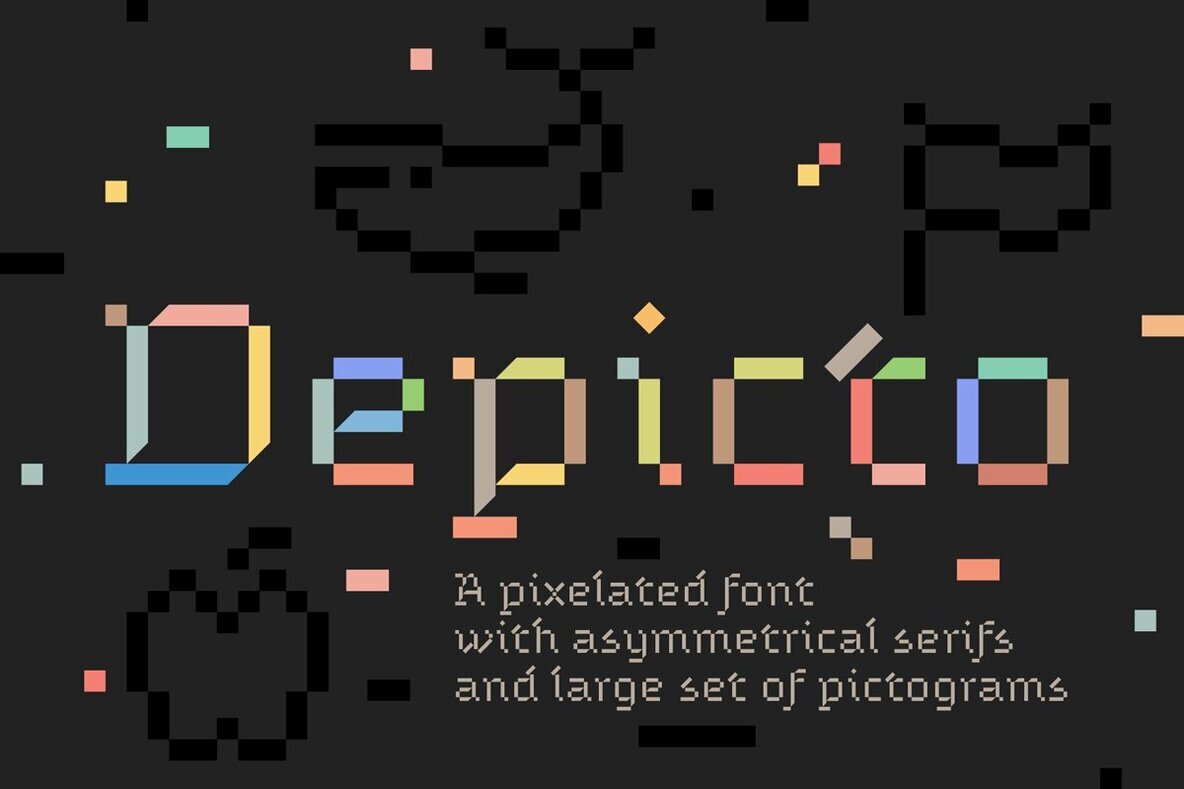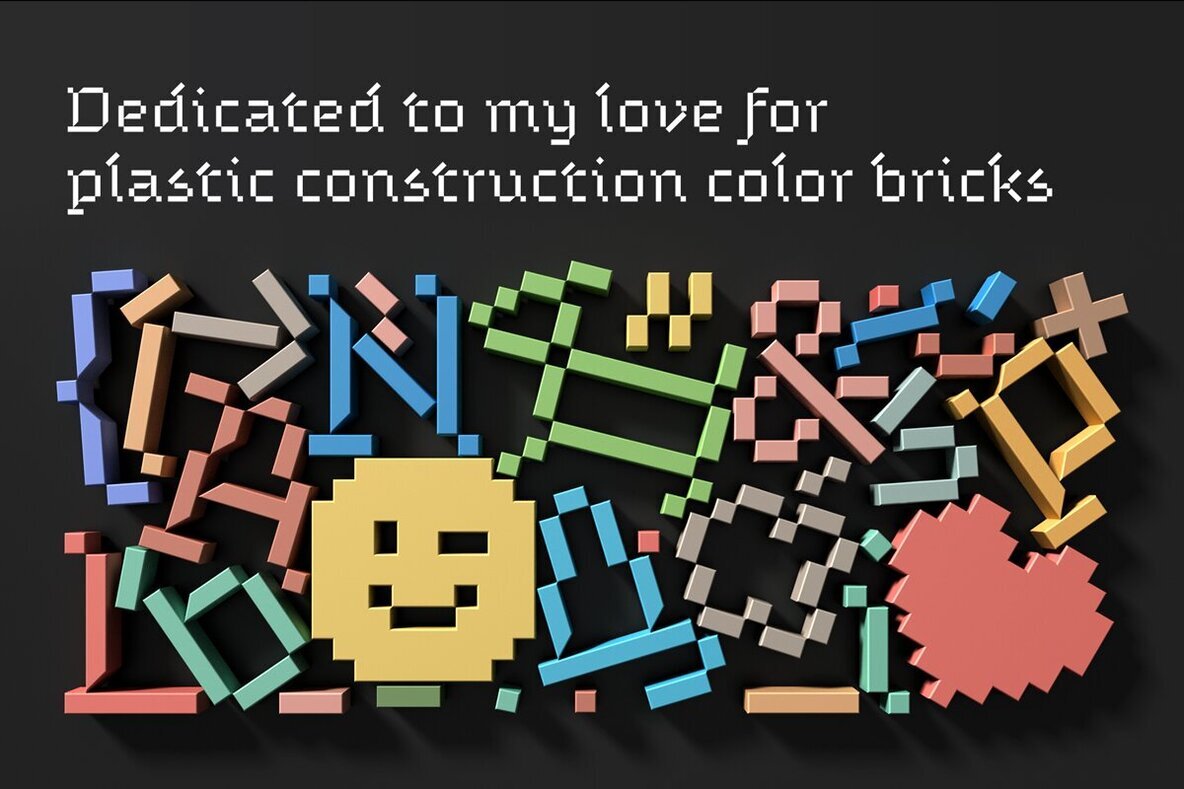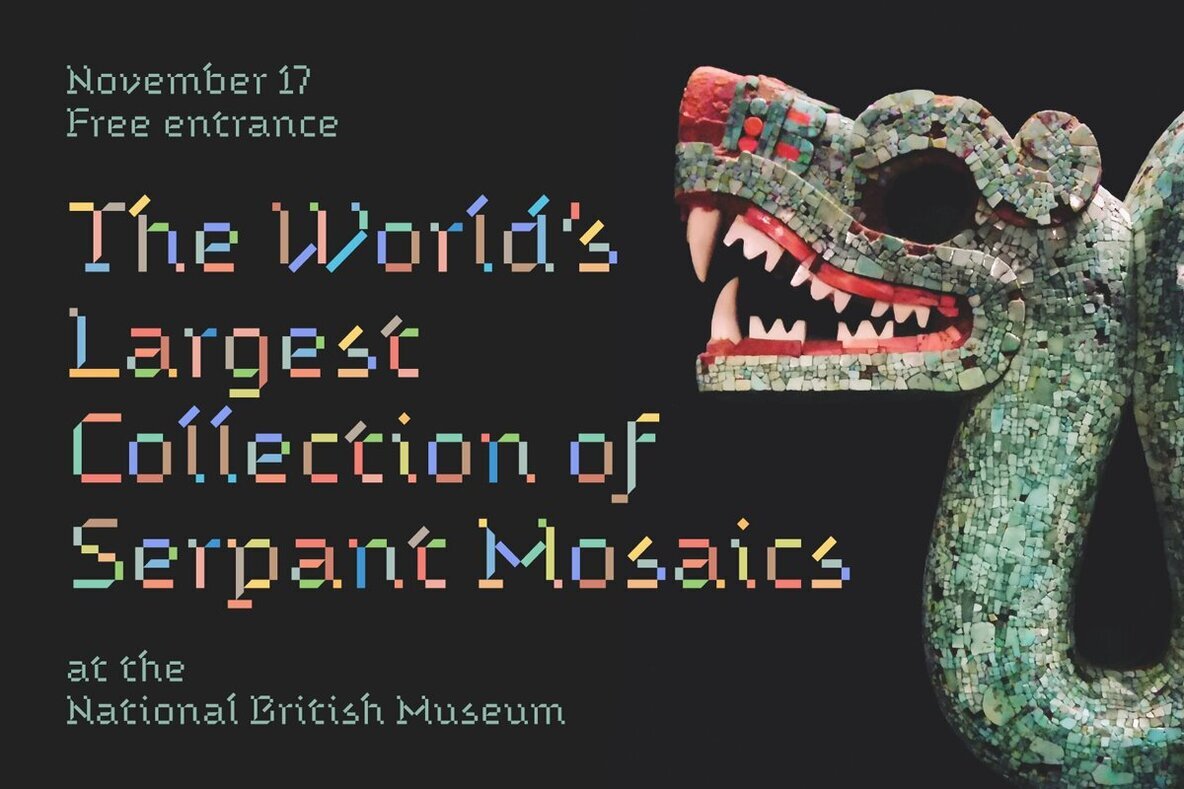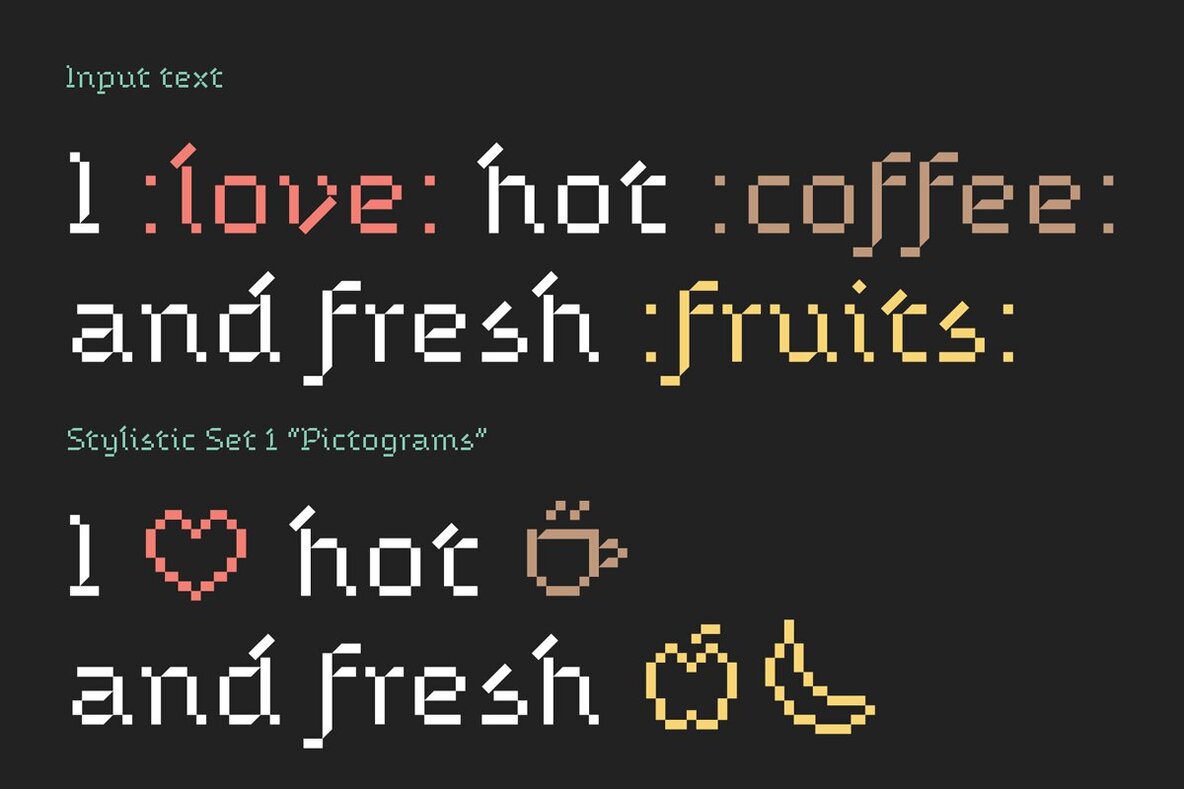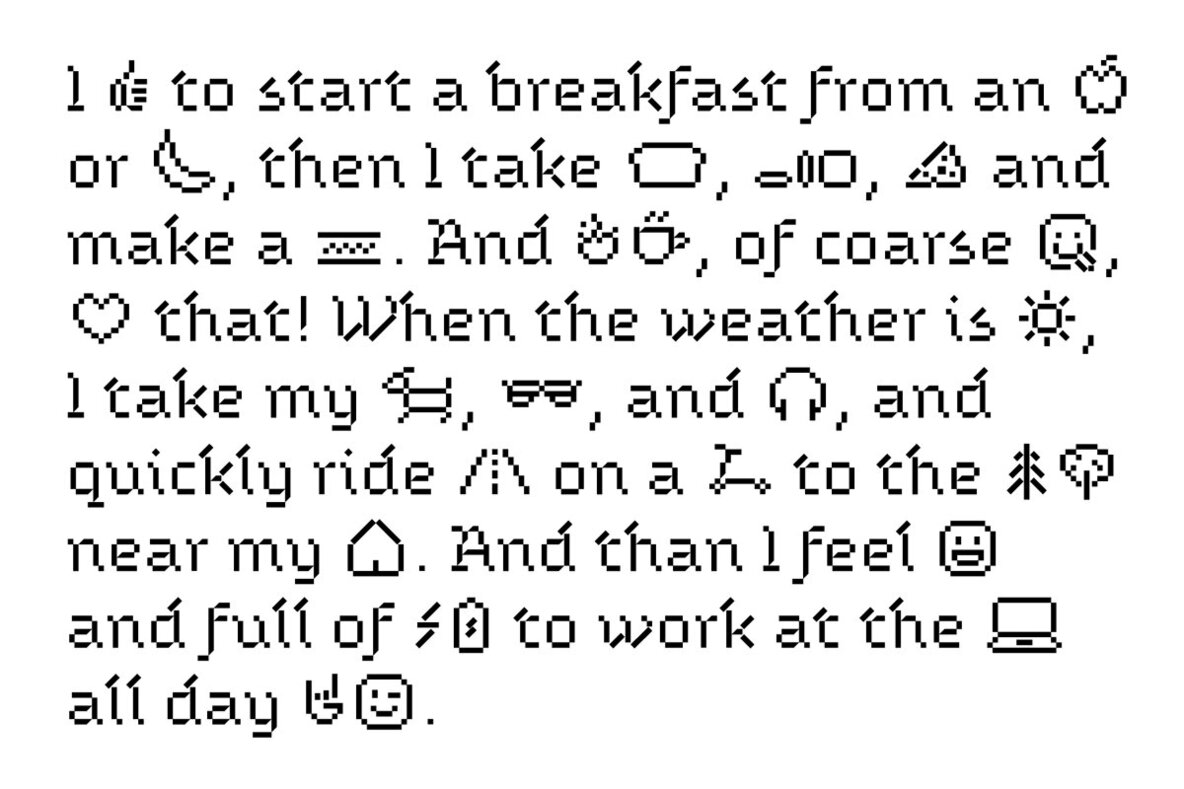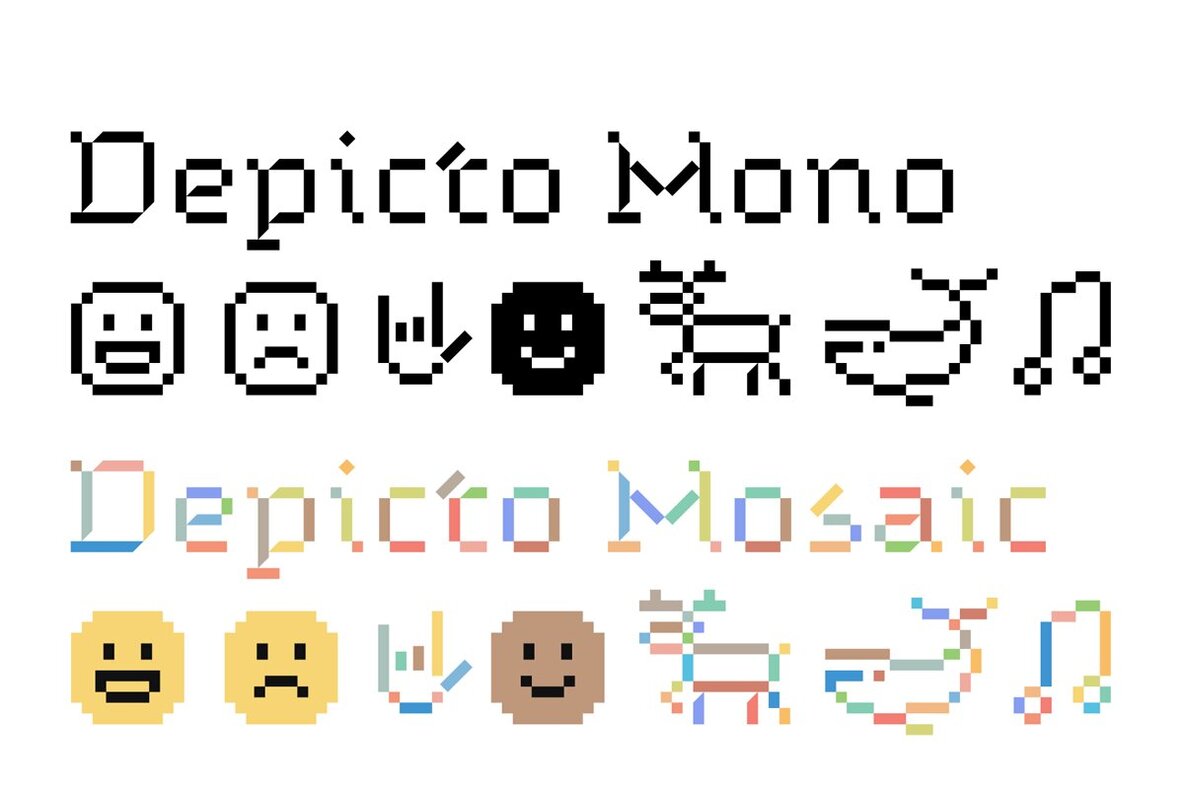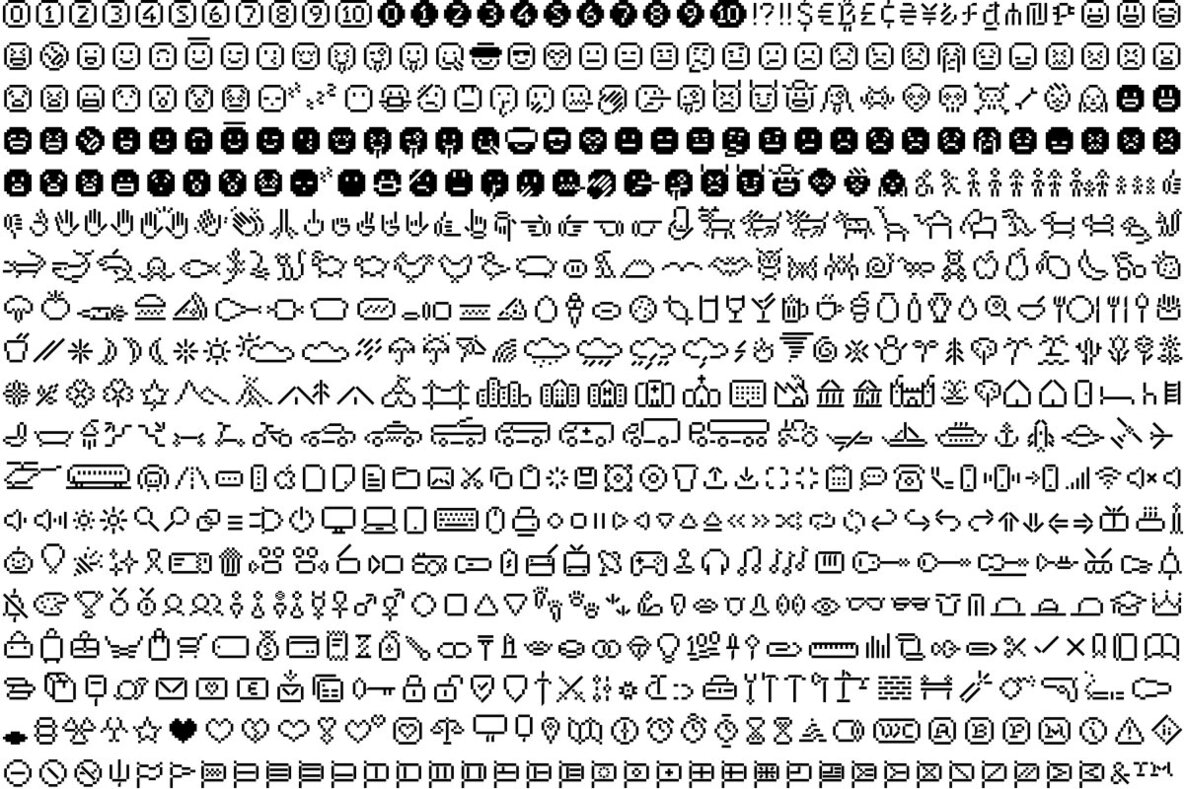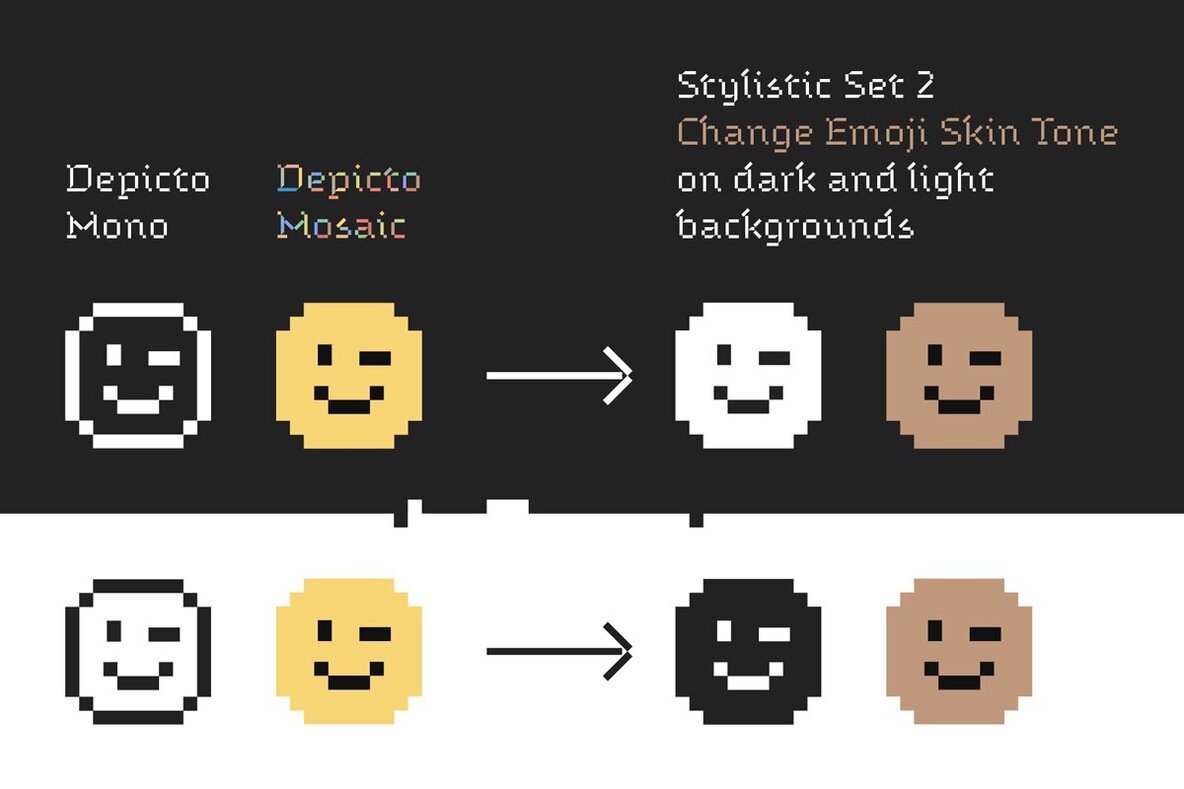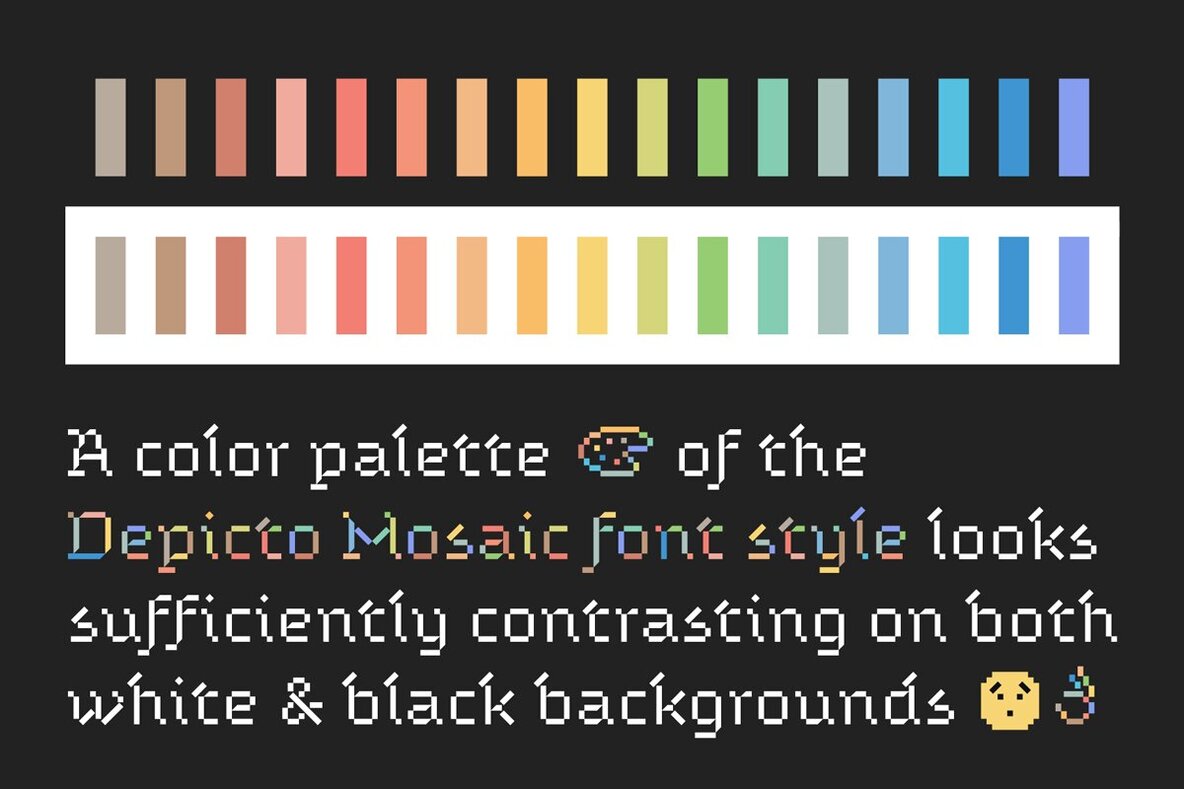
Depicto Font
Depicto is a pixelated typeface with asymmetrical serifs intended to depict emojis in coarse mosaic shapes and represented in two styles that perfectly complement each other – Mono (casual font) and Mosaic (color font). From author: As a child, I liked to play with plastic constructors. It was something much simpler than lego, but these colored blocks took up a lot of my time, a lot ) And of course, I liked 8-bit video games. It was not long, somewhere in the 6th-8th grade of school. Not long, but fascinating. As I remember, that was the Dendy Junior console. All those childhood memories were reflected in the Depicto font family. Scripts: Latin, Greek, Cyrillic, Georgian, Arabic, Hebrew
Out of respect for 8-bitness, almost all the dimensions are multiples of 8 – a letters elements have a width of 80 points and a length of 80, 160, 240, 400, and so on, as well the spacing between the characters and the vertical metrics. Although inspired by pixelation, the font plays with its own geometry. Using simple squared shapes, it balances between pixel-perfect and diagonal mosaic. The letters construction is based on rectangles – horizontal, vertical, and rotated by 45 degrees. It is important to note that the letters consist of separate non-intersecting elements, each of which, in the Depicto Mosaic font style, is painted in different colors.
The font also uses upper left and lower right horizontal serif strokes. Such asymmetrical serifs are typical for Ukrainian typography since the works of Heorhiy Narbut. Their digitization and pixelization calls for a new look at artistic constants.